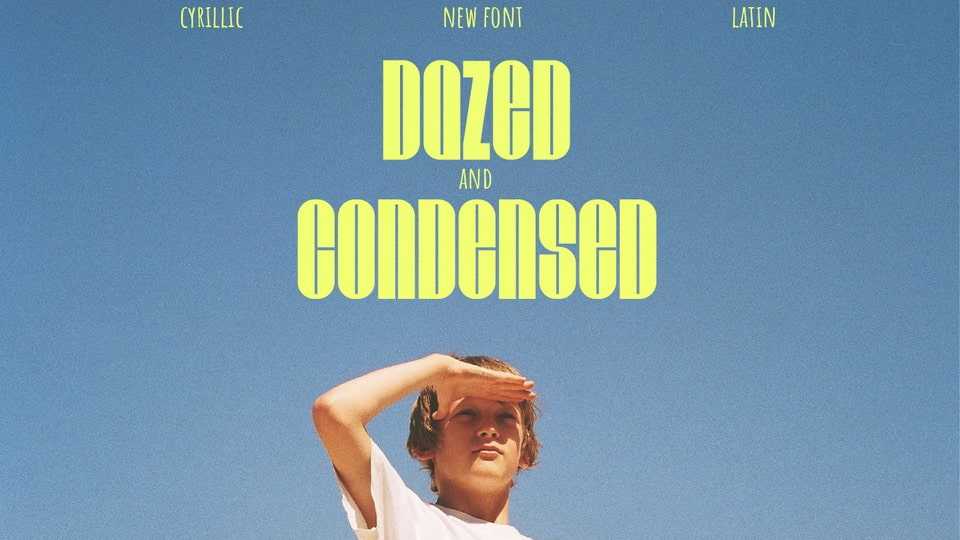
Download Dazed and Condensed font, a modular grotesque typeface inspired by the vinyl covers of the 60-70’s, Woodstock and all the hippies and rocknrollas who stood for love, peace and freedom.
Designer: Anastasia Karpova